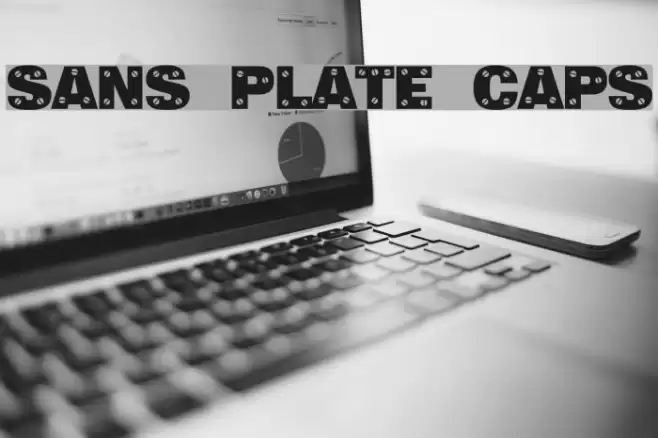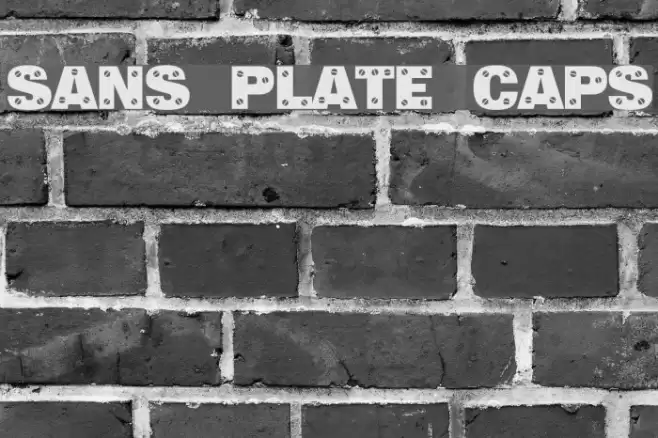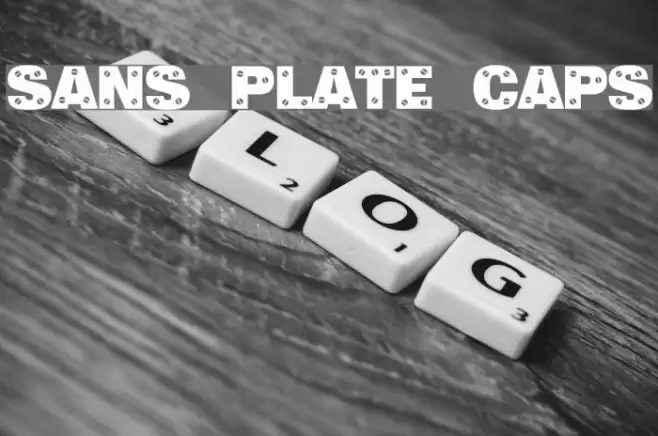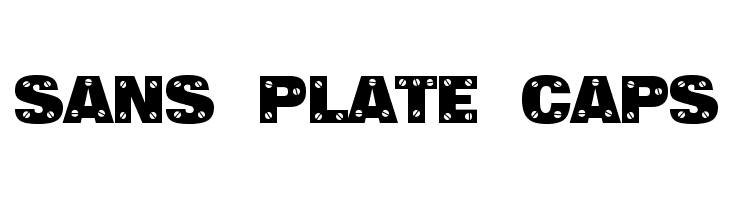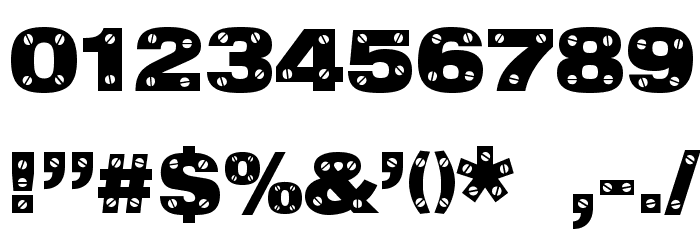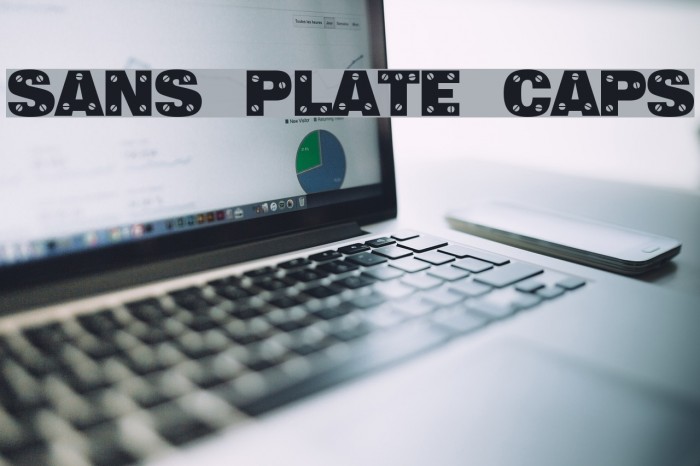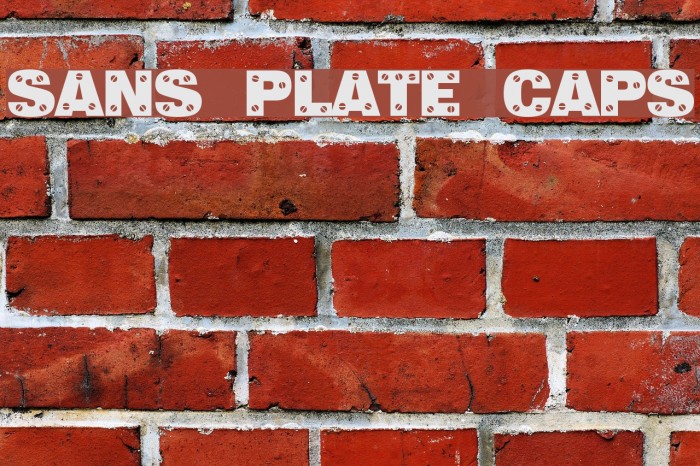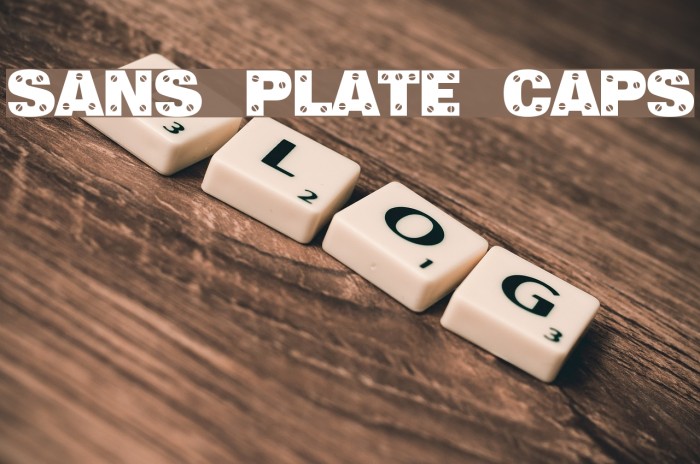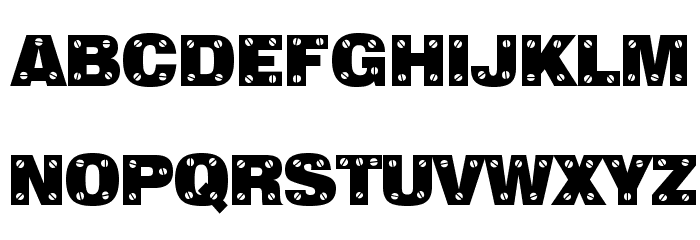
Sans Plate Caps Font
Sans Plate Caps Description
This font features a bold and decorative style with a unique twist. Each character is designed with a solid, blocky appearance, enhanced by circular cutouts that add a playful and eye-catching element. The uppercase and lowercase letters maintain a consistent weight, providing a strong visual impact. The numbers and special characters follow the same design principle, ensuring uniformity across all glyphs. This font is perfect for projects that require a bold statement and a touch of creativity.
A bold, decorative font with circular cutouts for a playful look from Uncategorized fonts.
- Proposed Projects: Ideal for posters, logos, and branding materials that need a bold and creative touch.